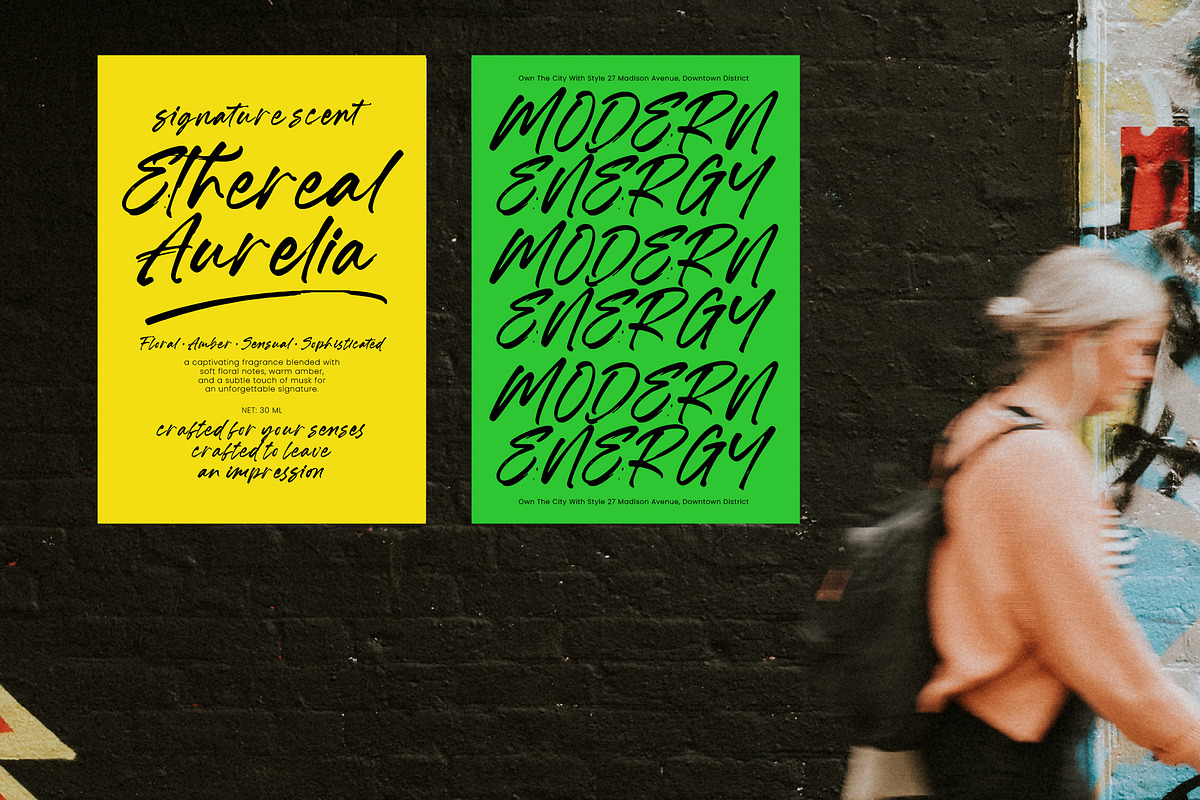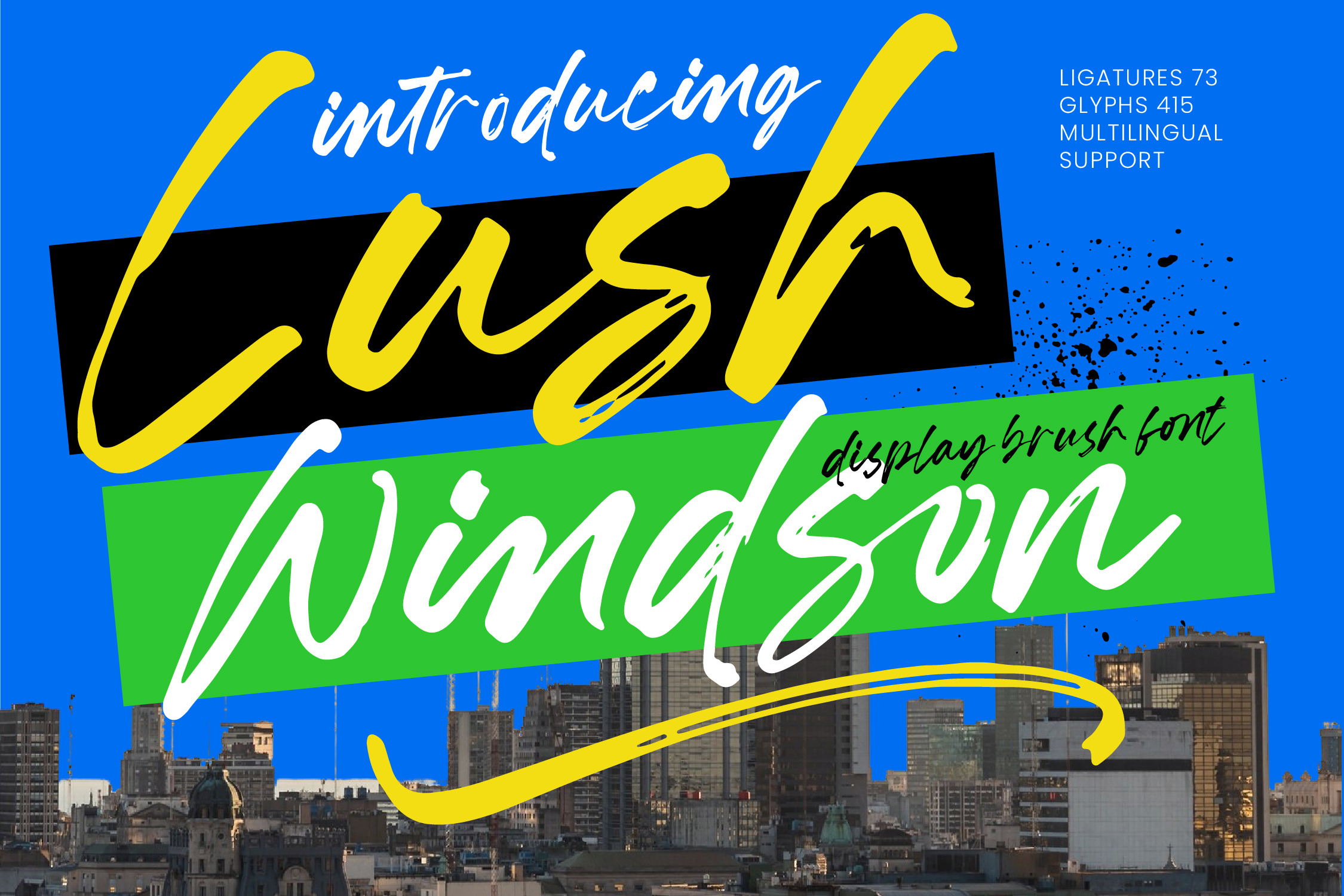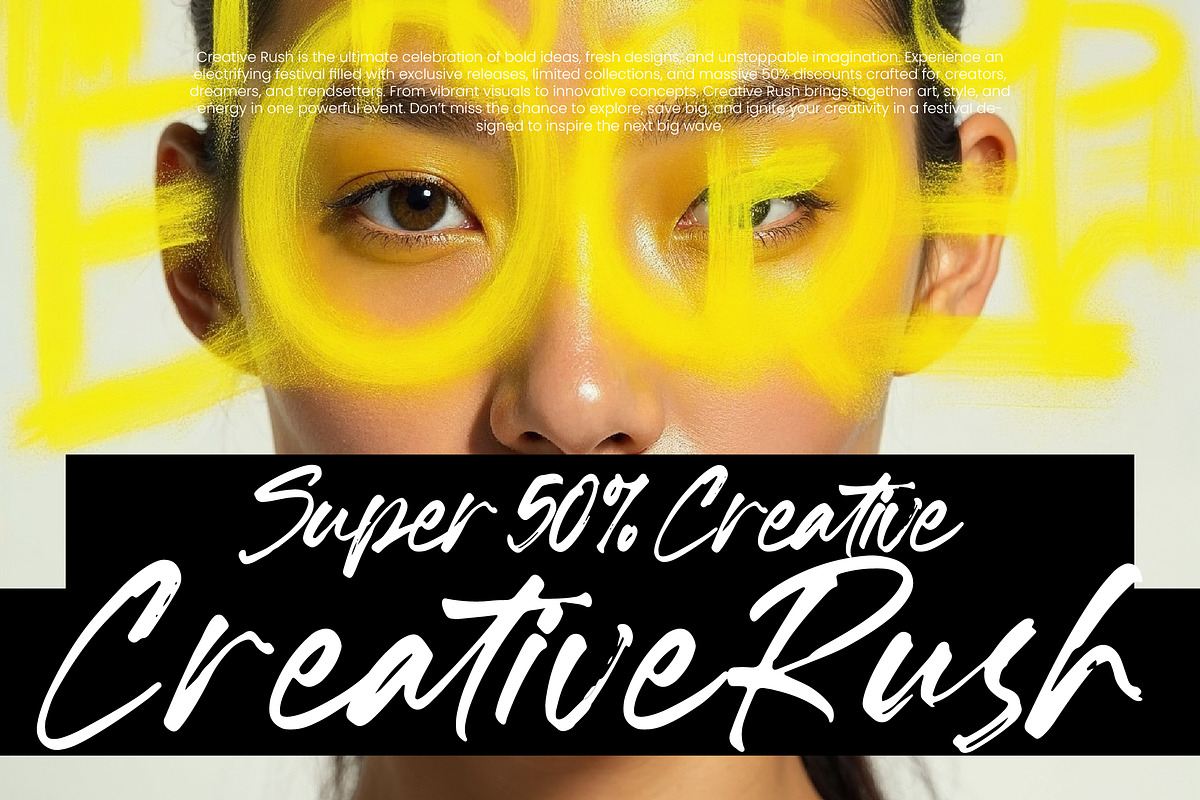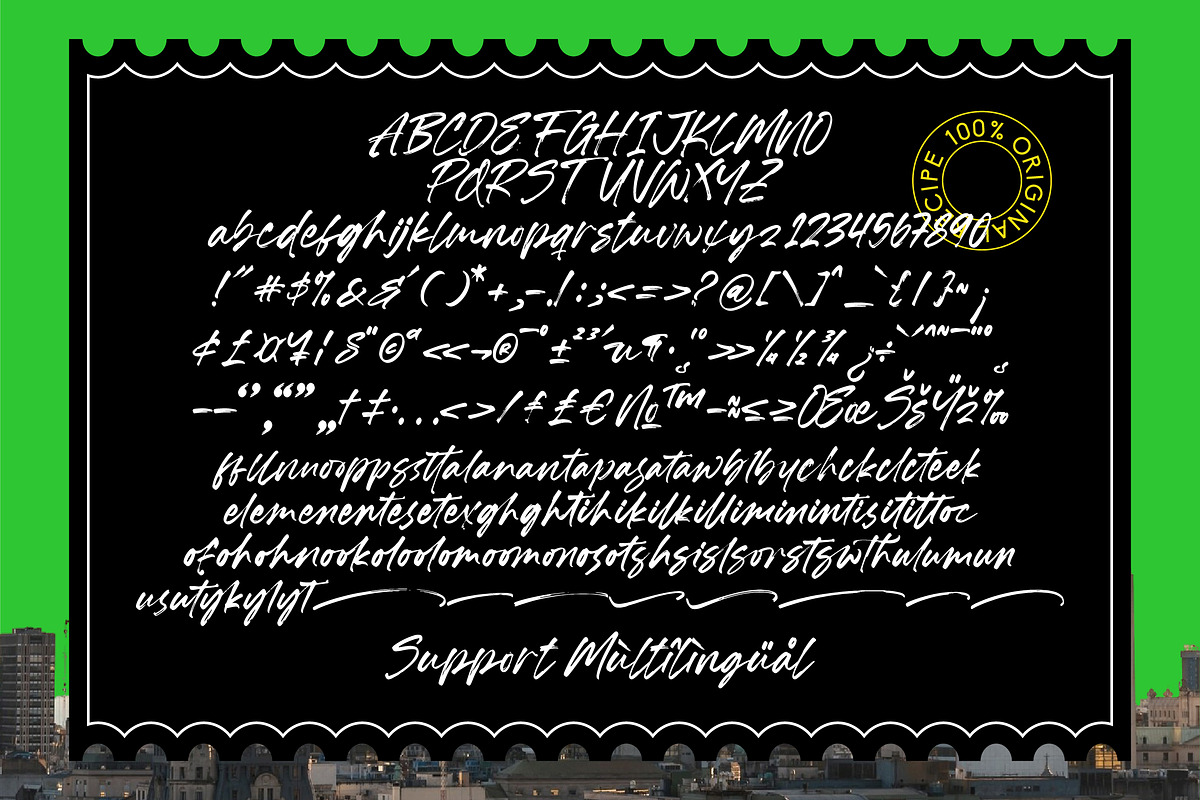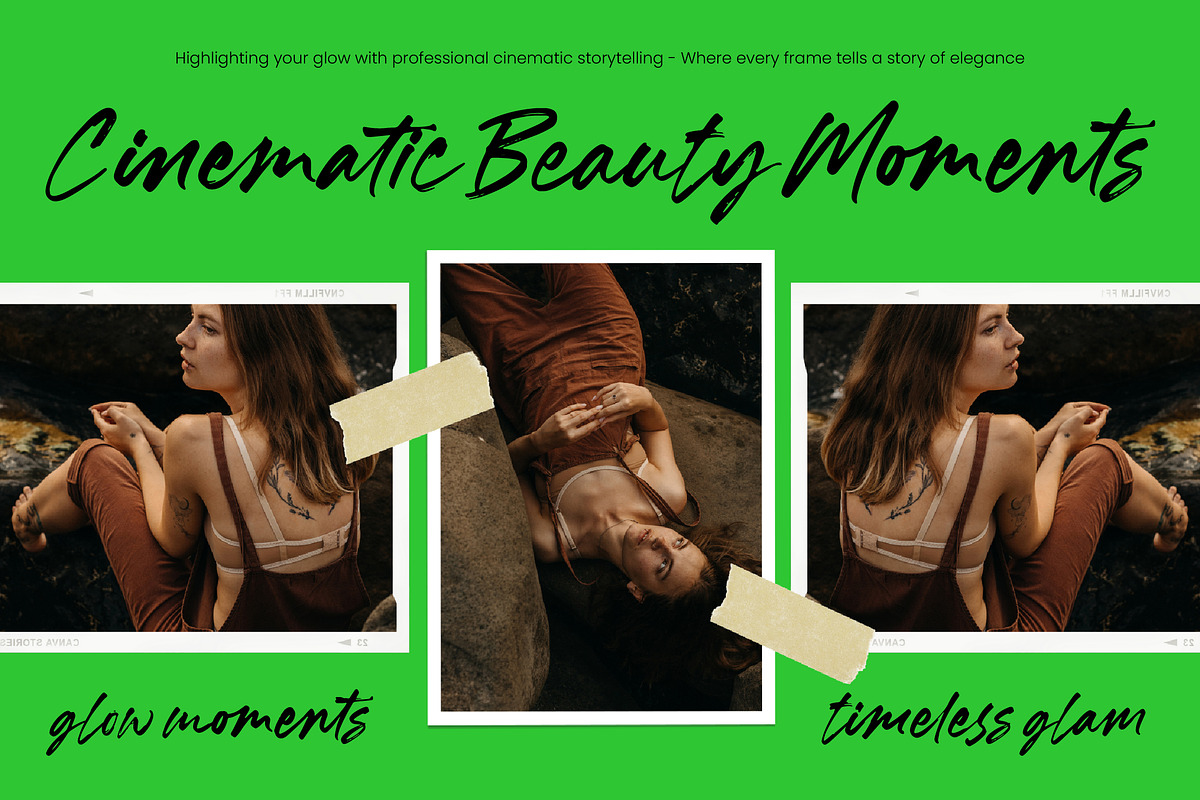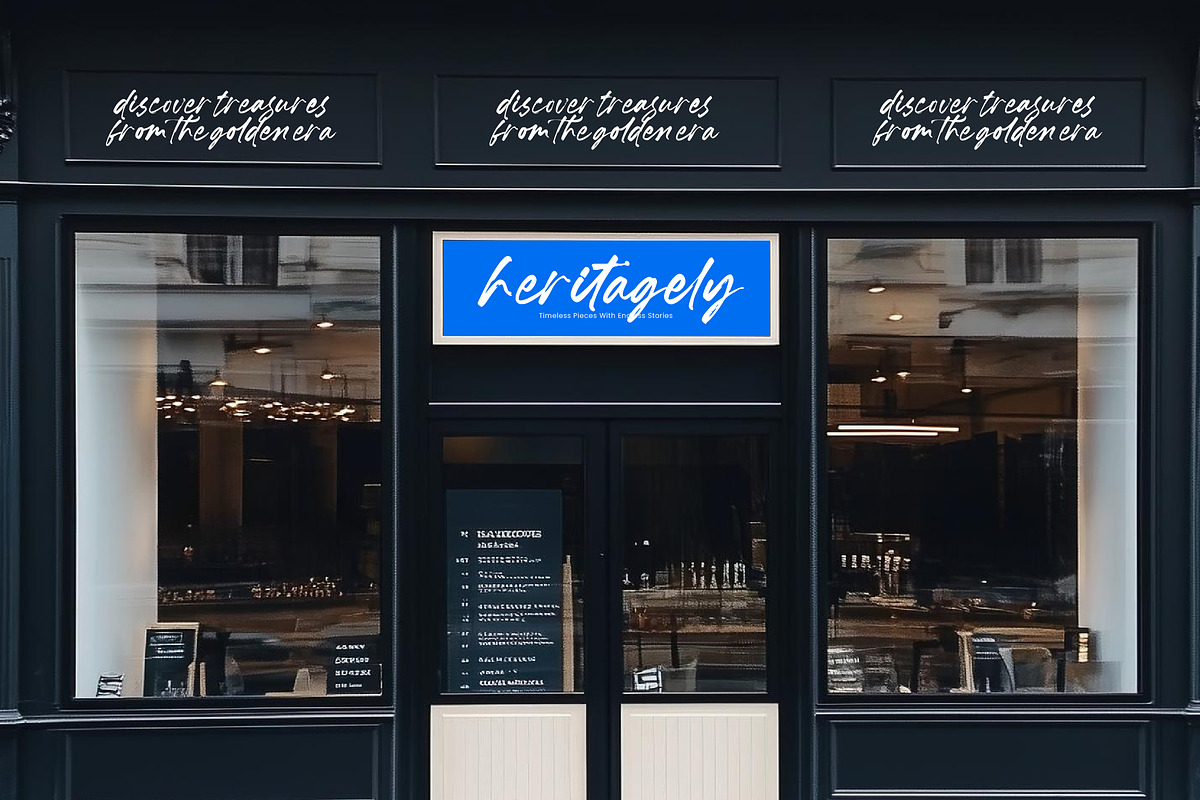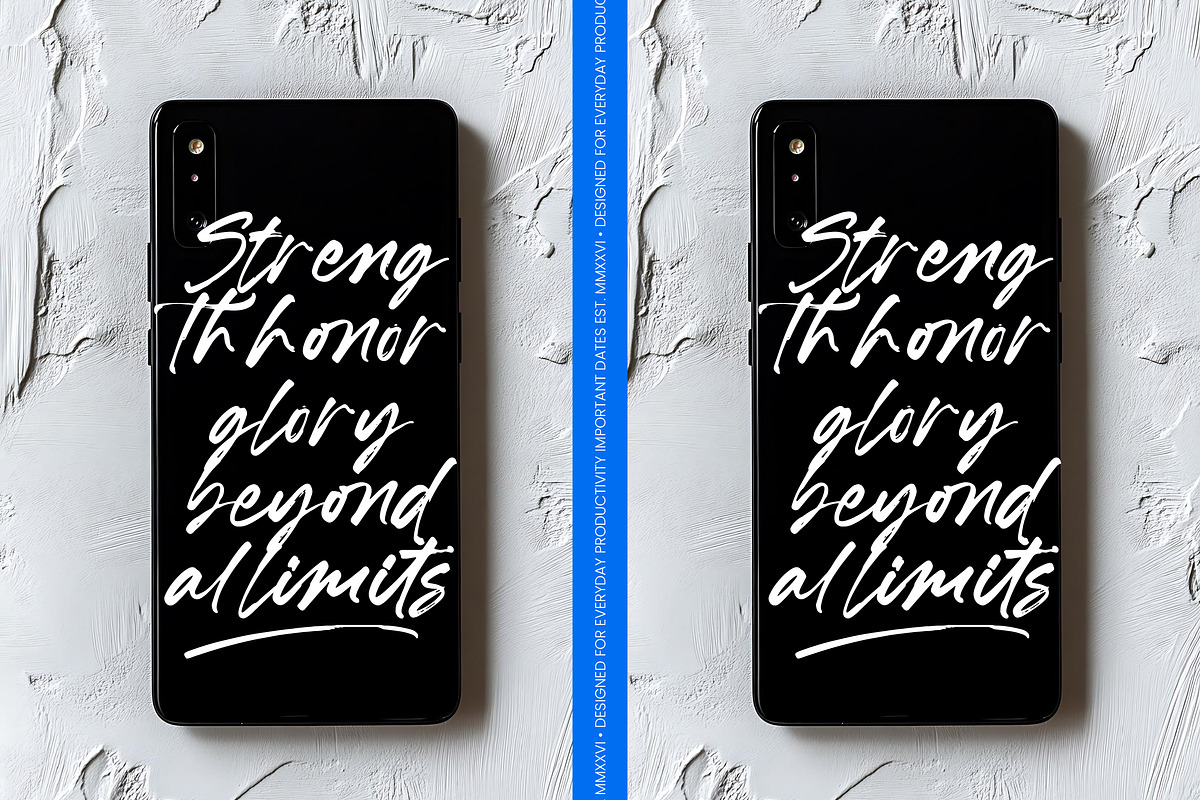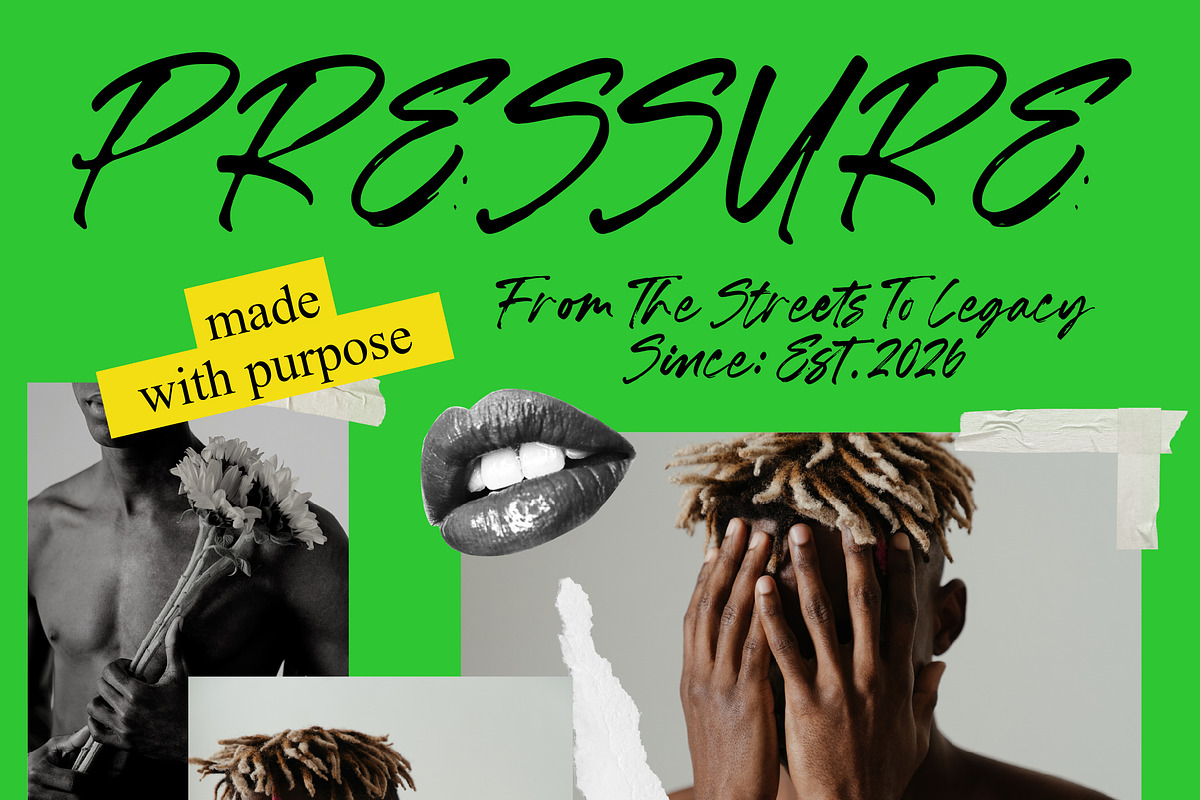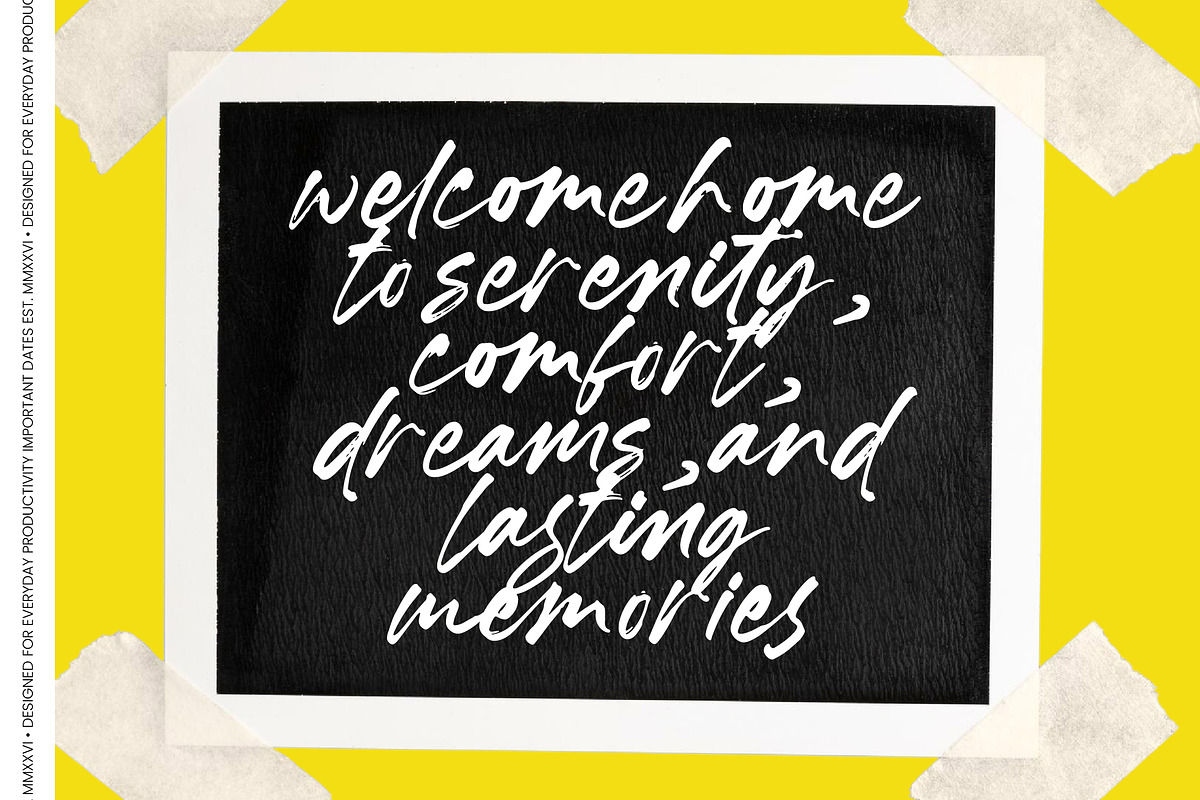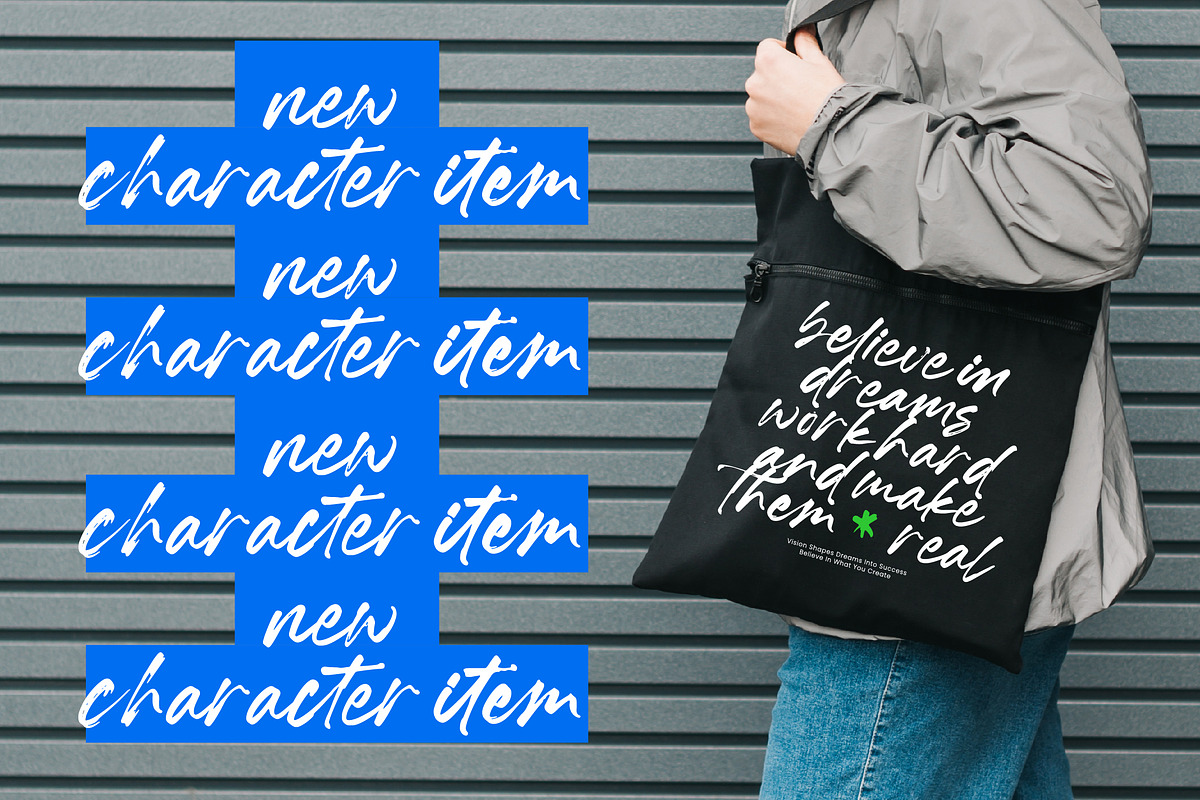
Lush Windson Display Brush Font
Lush Windson - Display Brush Font , Unleash the power of raw, handwritten energy with Lush Windson - Display Brush Font. This expressive brush typeface captures a sense of urban movement and authentic texture, making it an essential tool for designers seeking to make a bold statement. Its fluid strokes and organic rhythm create an impactful visual identity that demands attention in any commercial design or digital media environment.
Elevate your creative projects to new heights with a typeface designed for maximum impact. Lush Windson - Display Brush Font is the perfect choice for luxury branding, high-end packaging, and dynamic street-style apparel. It excels in social media marketing and editorial layouts, providing a premium aesthetic that resonates with modern audiences looking for originality and edge.
Expand your brand's reach across borders with a font built for global communication. With its extensive multilingual support, Lush Windson - Display Brush Font adapts seamlessly across global markets, making it incredibly versatile for international projects. Whether you are targeting local boutiques or worldwide campaigns, its meticulously crafted character set ensures your message remains clear and stylishly cohesive.
Experience the ultimate flexibility of a high-performance display font packed with advanced features. Lush Windson - Display Brush Font includes over 415 glyphs and 73 custom ligatures, allowing for seamless connections and natural-looking typography. This professionally developed typeface is more than just a font; it is a comprehensive design solution for professionals who refuse to settle for anything less than exceptional quality.